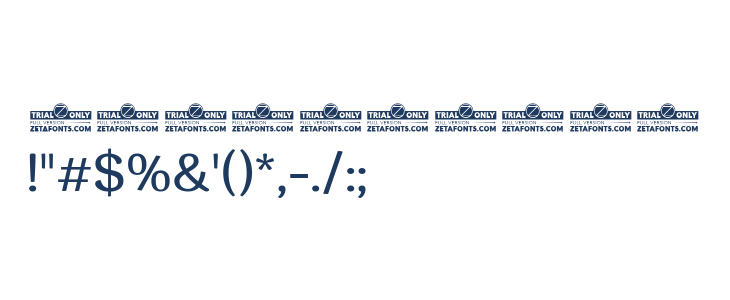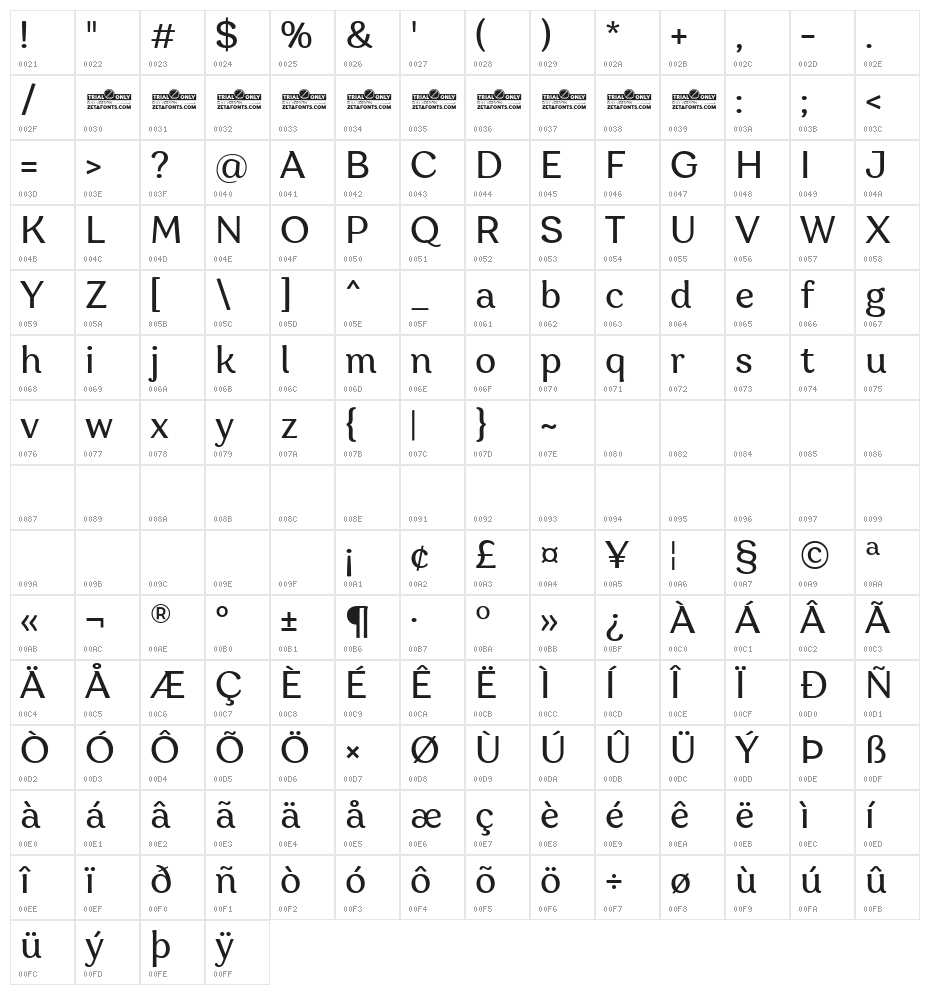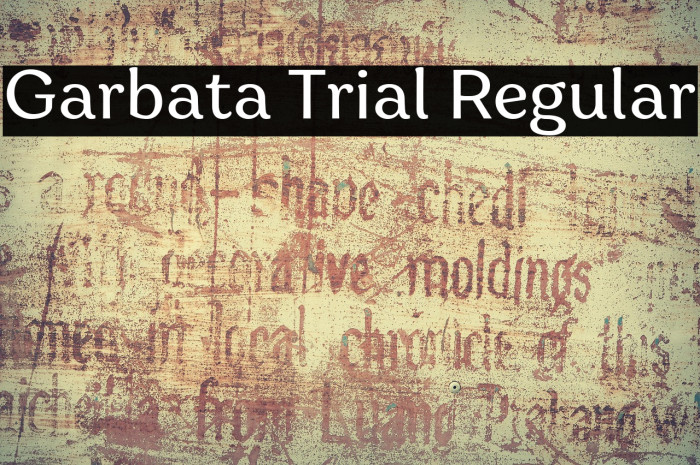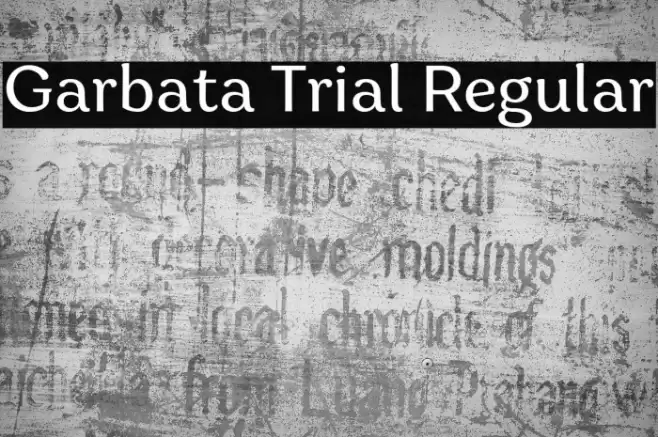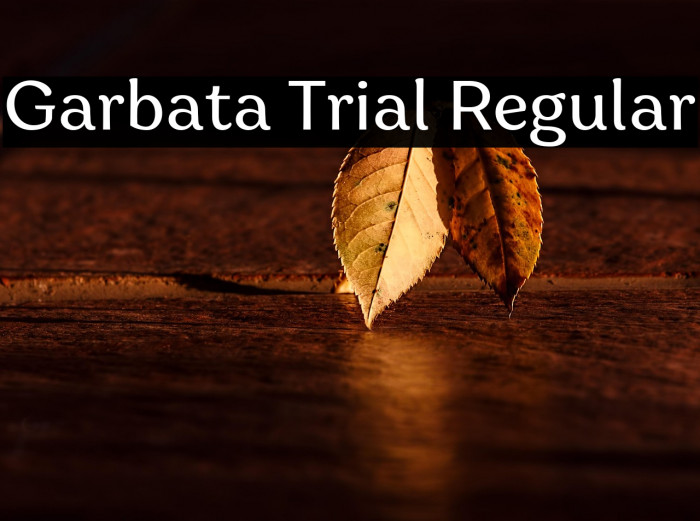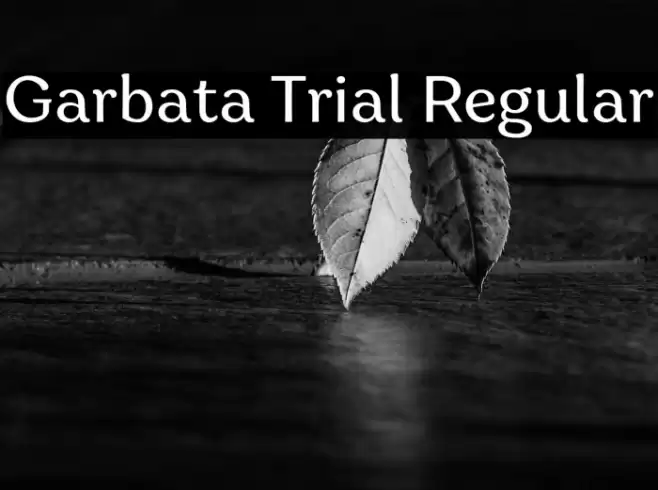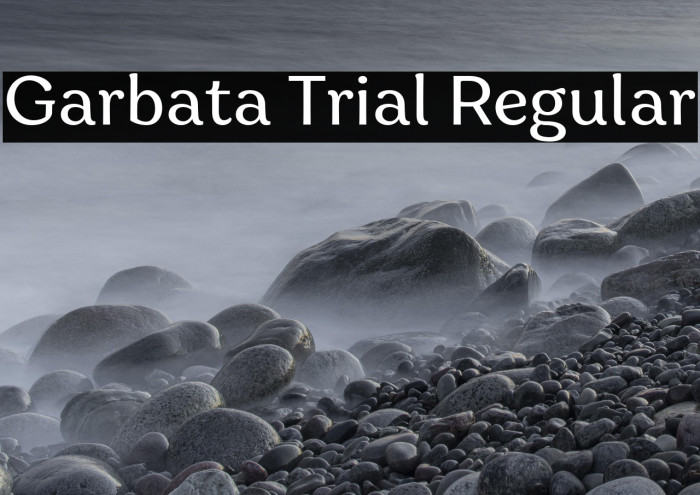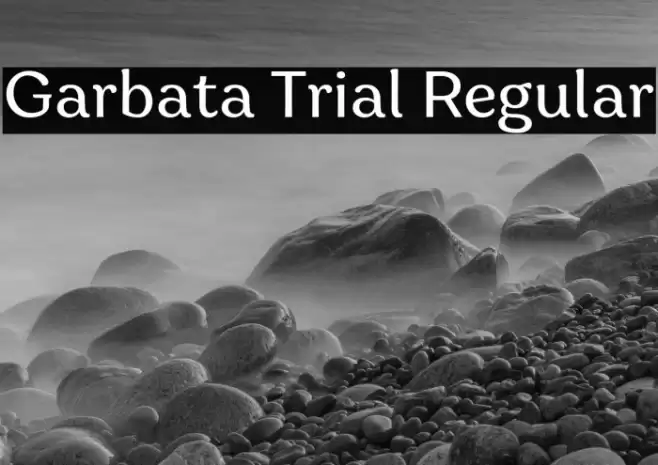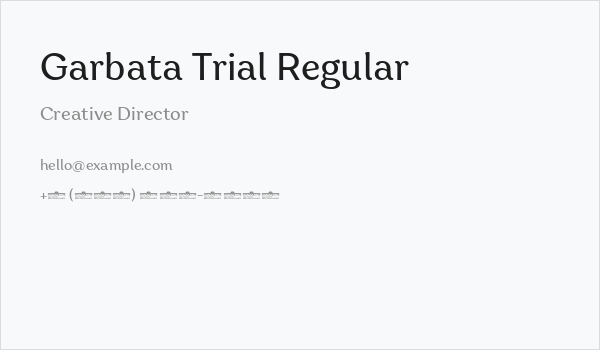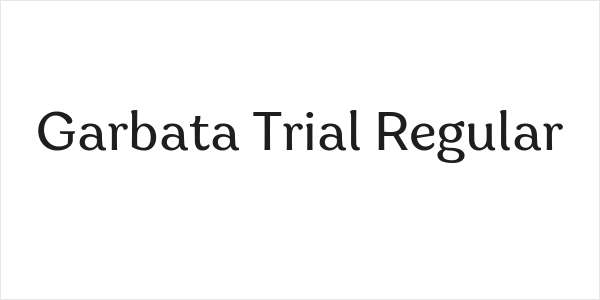
Garbata Trial Regular Font
Garbata Trial Regular Description
This font presents a modern and clean serif style, characterized by its elegant curves and balanced proportions. The uppercase letters are bold and assertive, while the lowercase letters maintain a softer, more approachable appearance. The font features a medium contrast between thick and thin strokes, enhancing readability and visual appeal. Its design is versatile, making it suitable for both digital and print media. The special characters are well-integrated, maintaining the overall aesthetic of the font. The spacing between characters is normal, ensuring clarity and legibility across different sizes.